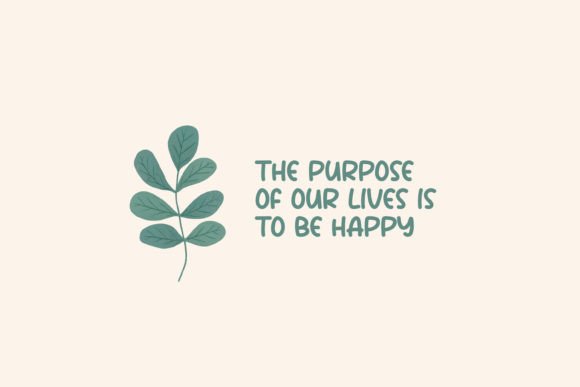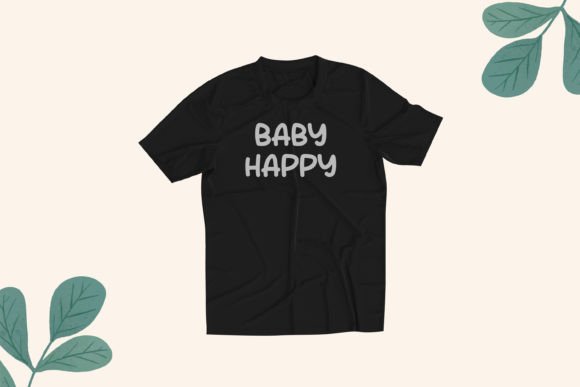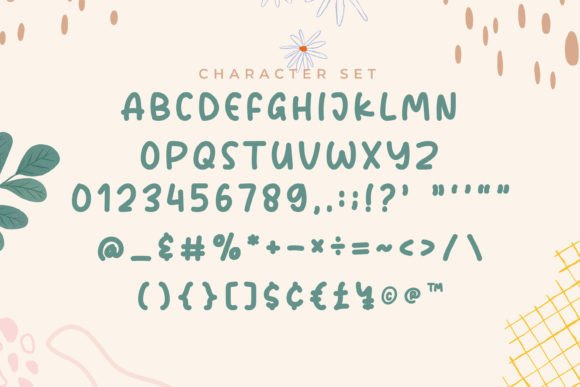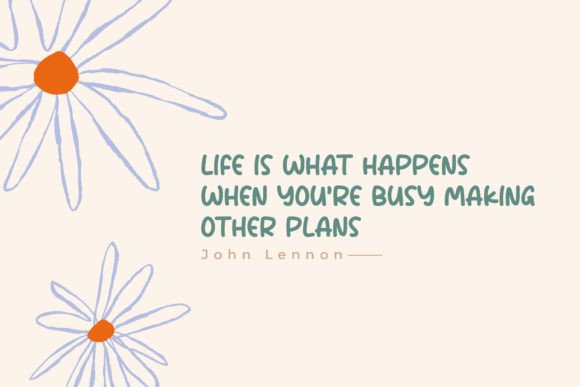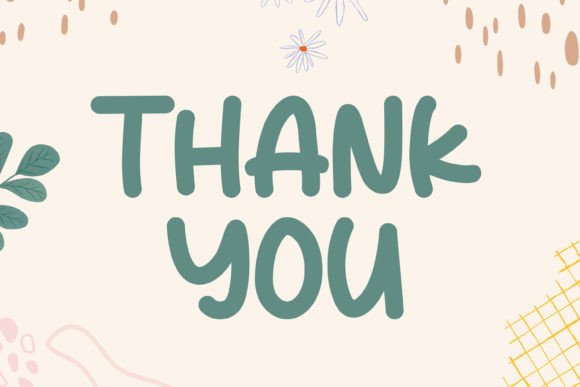
Introduction to Rozina Font
Rozina is a cute and colorful display font.
It embodies playfulness and authenticity and is perfect for any childrenโs activity or school project Add this chunky lettered font to your designs and notice how it makes them come alive.
Key Features of Rozina Font
Why Choose Rozina Font?
Rozina Font offers exceptional quality and versatility, making it a valuable addition to your design toolkit. Whether you’re creating for personal projects or commercial use, Rozina Font delivers professional results.